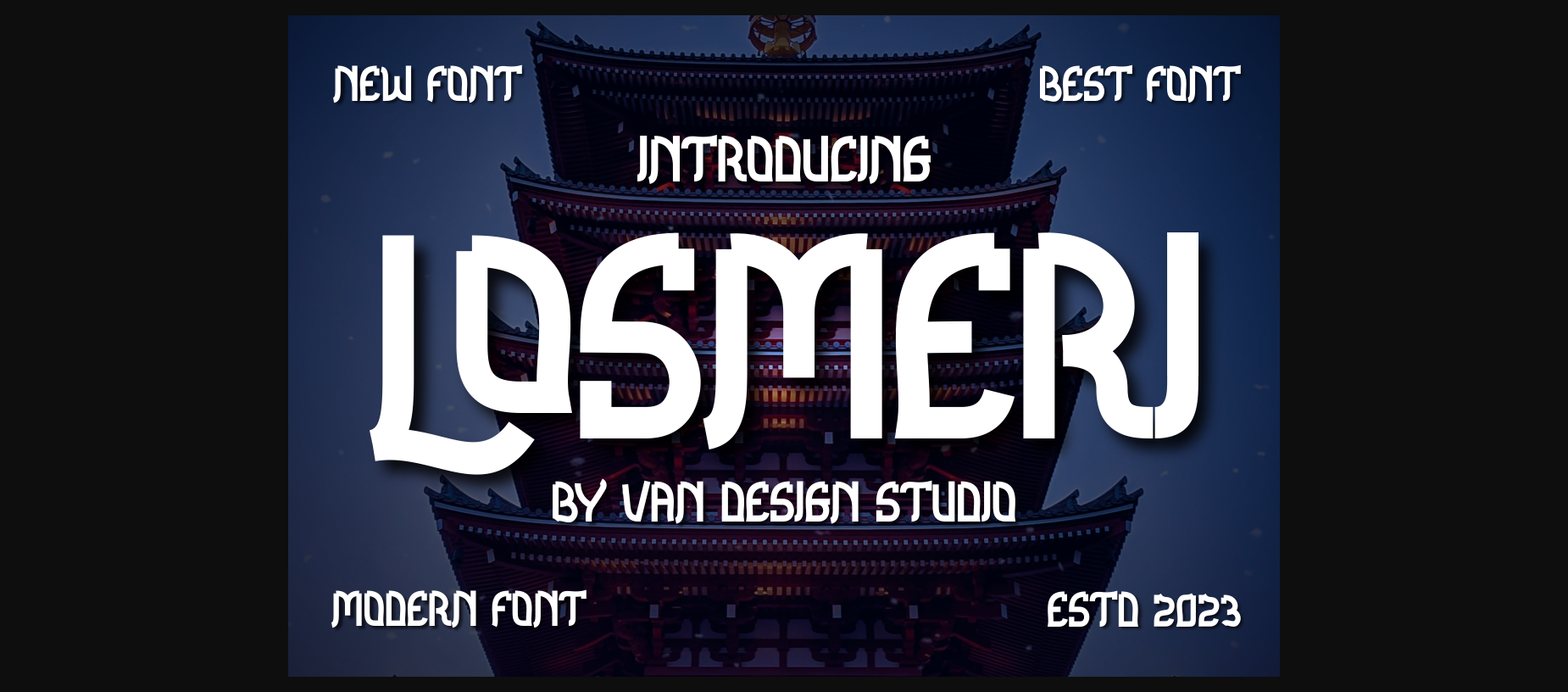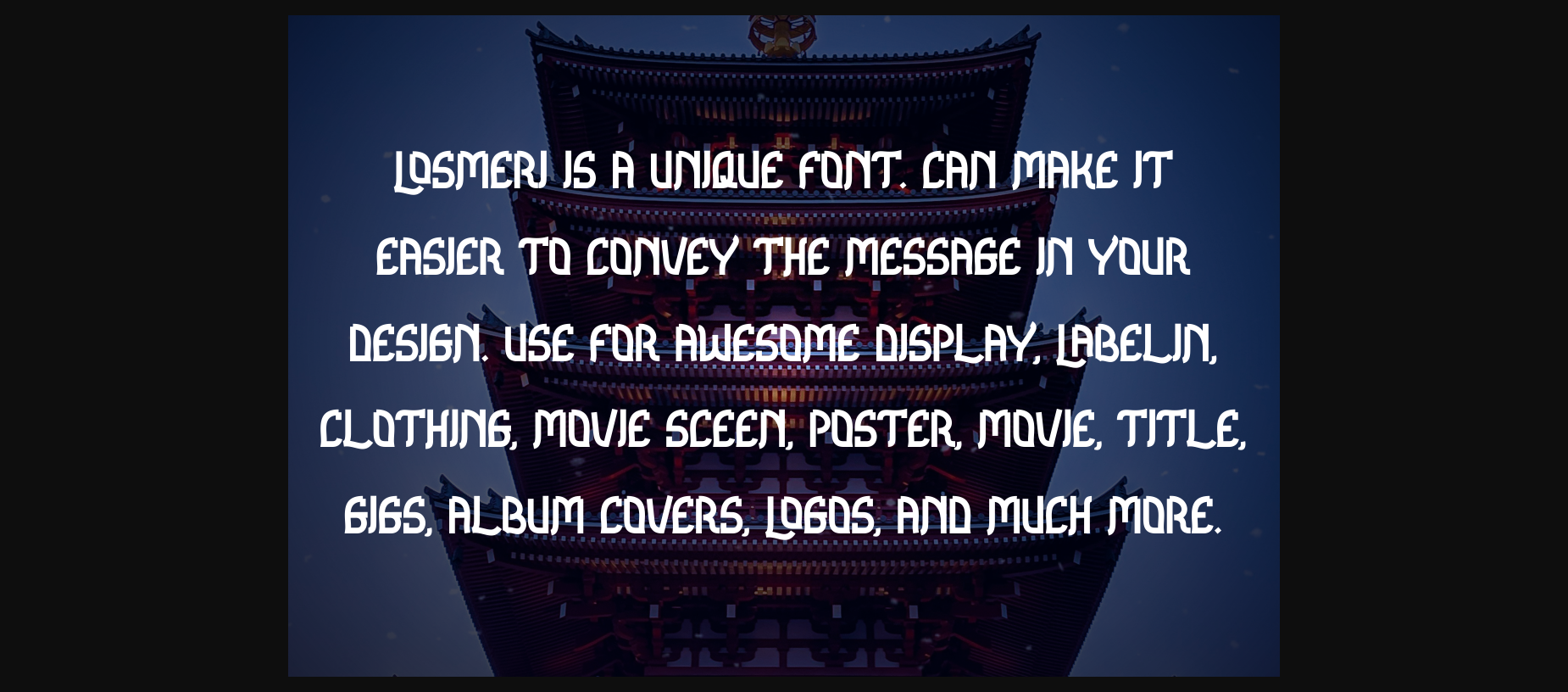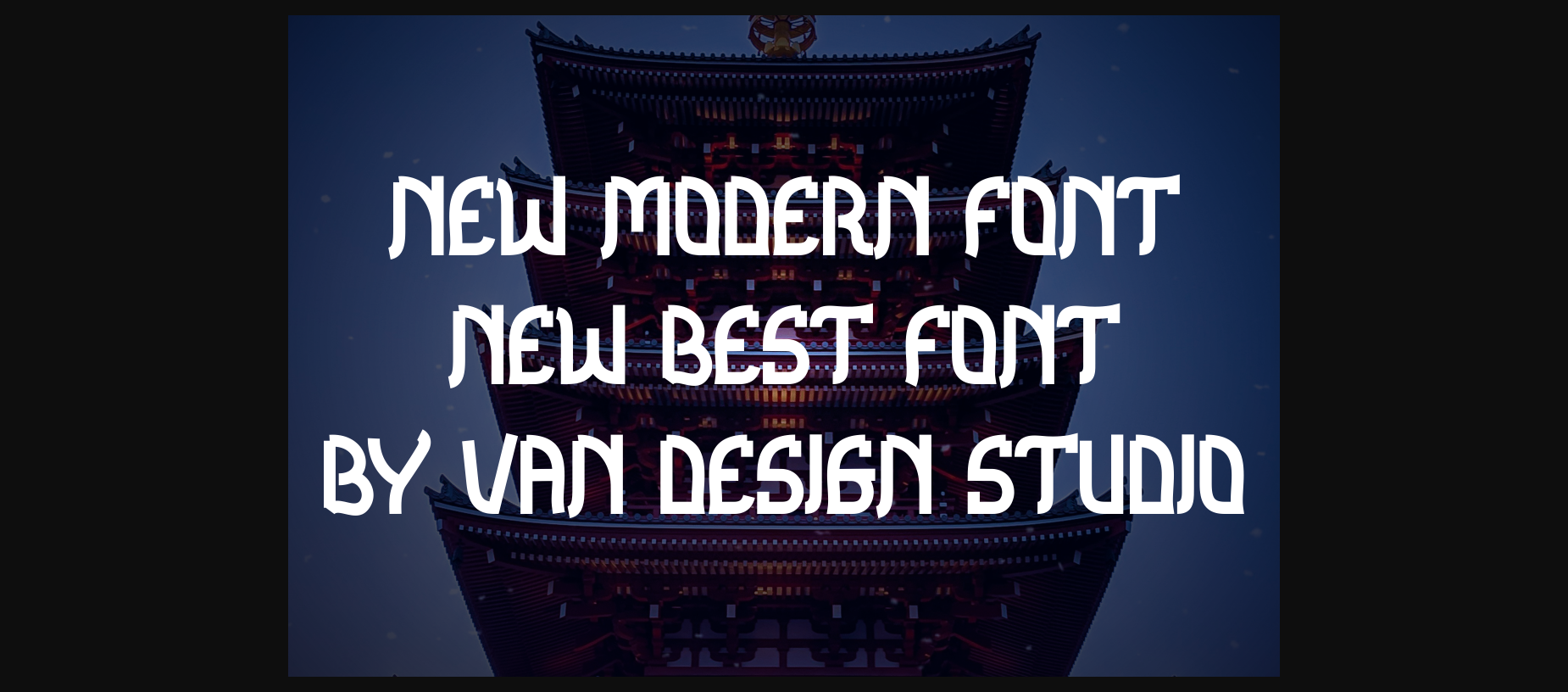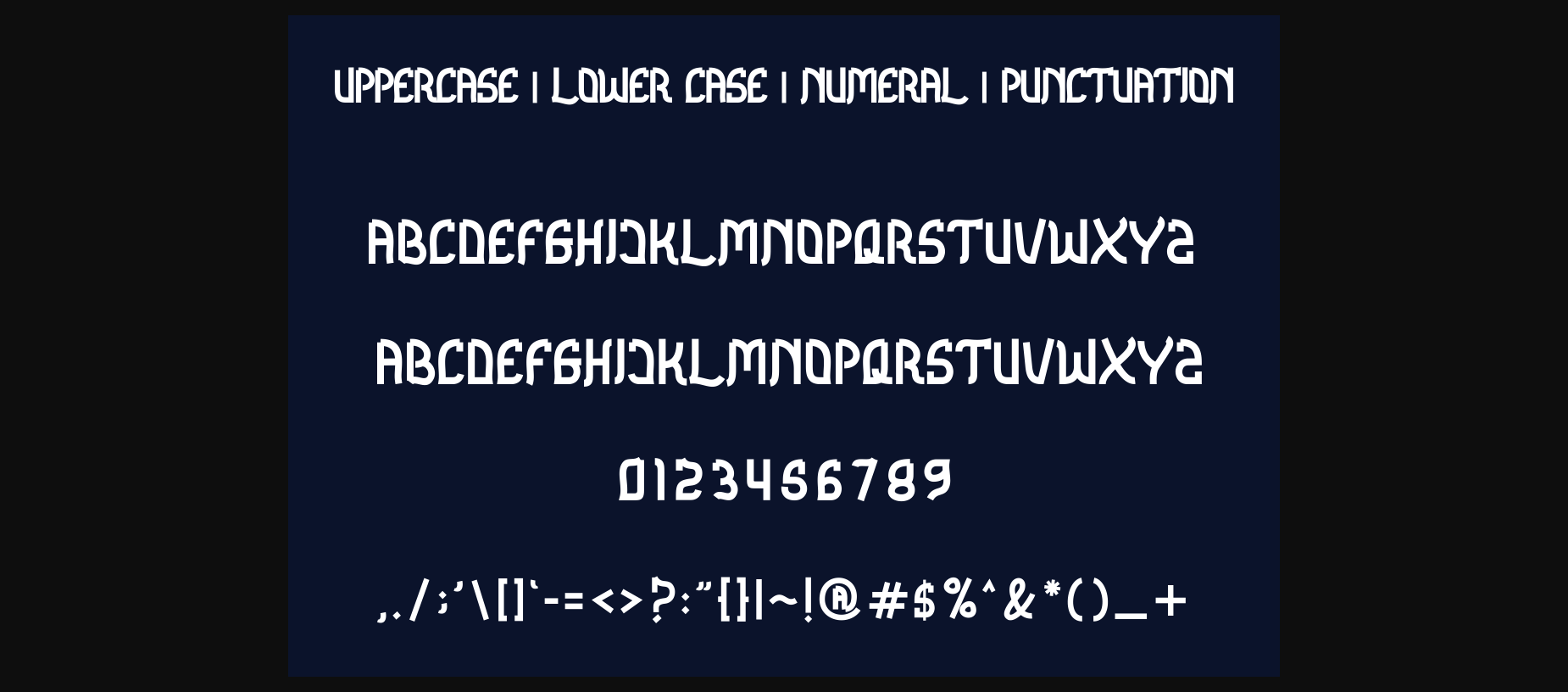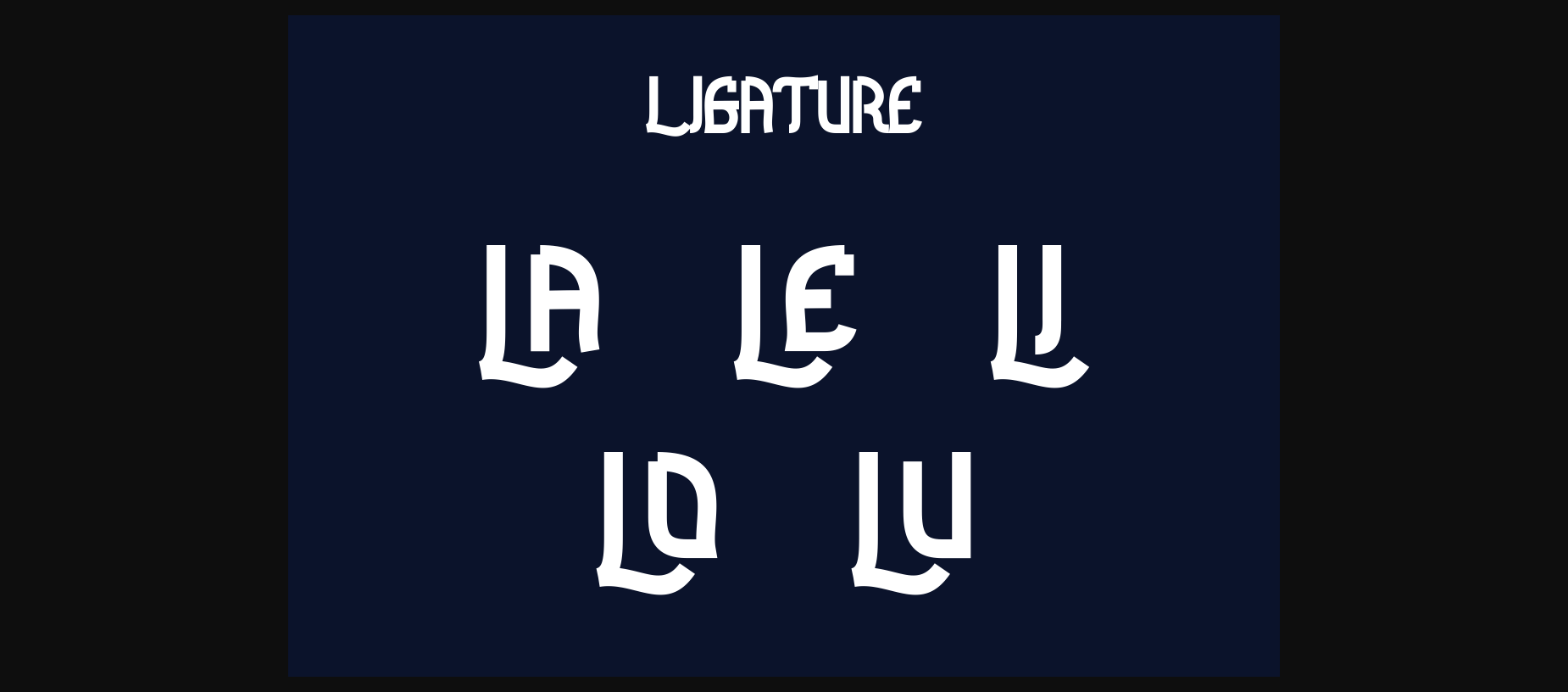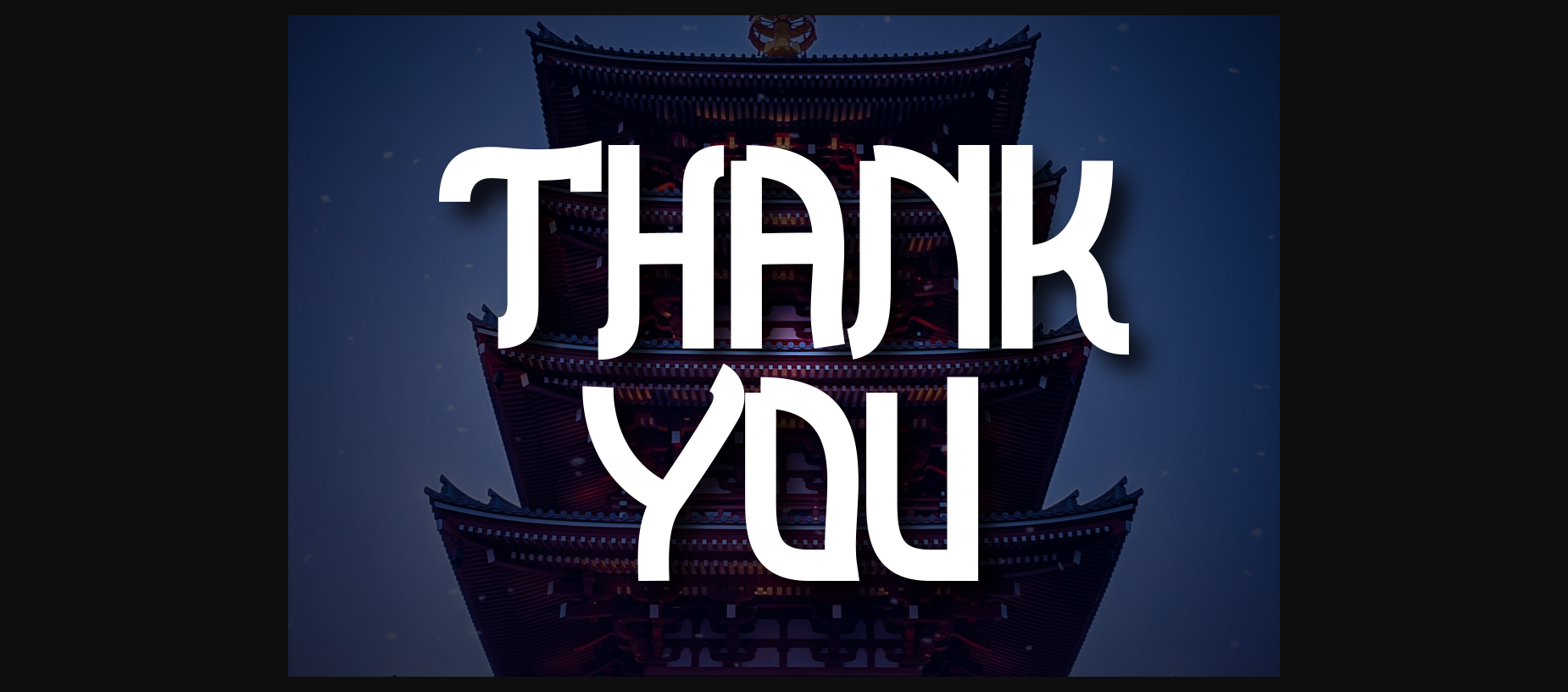
Losmeri is an incredibly unique sans serif font. Masterfully designed to become a true favorite, this font has the potential to bring each of your creative ideas to the highest level!